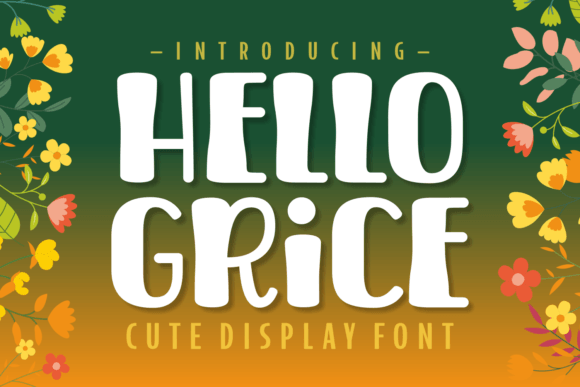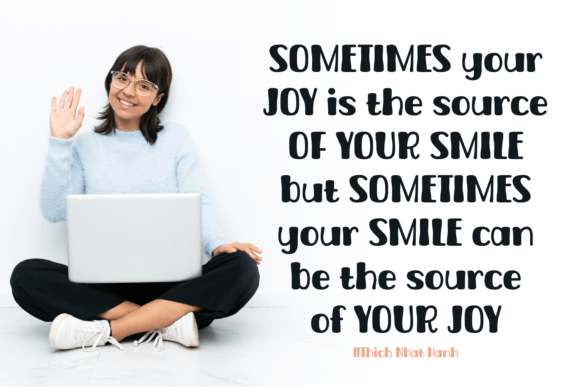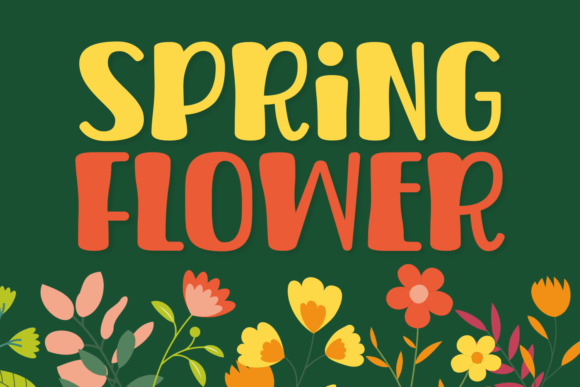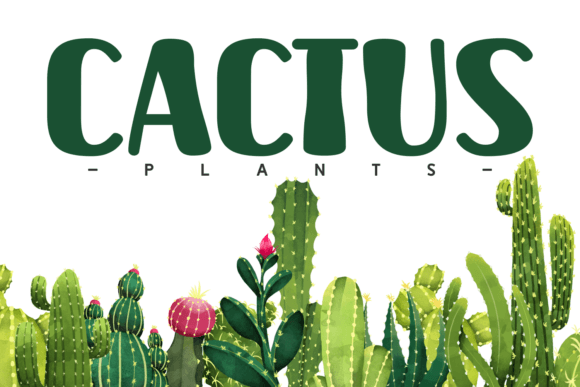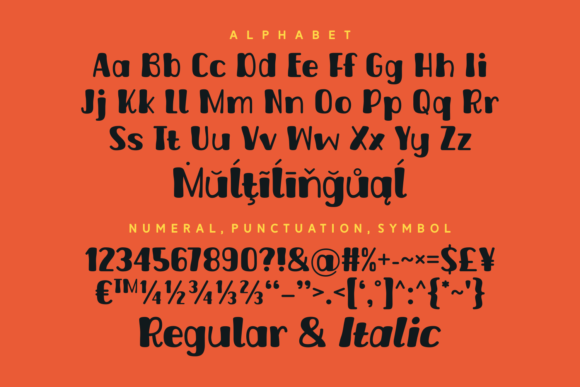
The Perfect Font for Whimsical Designs
Remember the moment when you’re brainstorming ideas for a project and suddenly, a burst of creativity hits you? The words start flowing, and your imagination runs wild. That’s exactly what the Hello Grice Font can do for your designs – transport them to a magical world where anything is possible.
Hello Grice is a display font that embodies the perfect blend of modern and whimsical style. Its cute and friendly nature makes it an ideal choice for designers looking to add a touch of playfulness to their work. With its unique charm, Hello Grice Font is sure to captivate your audience and leave a lasting impression. Whether you’re working on a children’s book, a greeting card, or a social media campaign, this font is sure to elevate your designs to the next level.
Hello Grice Font Key Features
- Font Family: Hello Grice is a sans-serif font family designed for modern and clean typography.
- Font Size: Hello Grice is available in 8 font weights, ranging from Thin (100) to Extra Bold (800), offering flexibility for various design needs.
- Unique Characteristics: Hello Grice features a unique blend of geometric and organic shapes, resulting in a distinctive and modern aesthetic.
- Language Support: Supports a wide range of languages, including Latin, Cyrillic, and Greek scripts, making it suitable for multilingual projects.
Hello Grice Font Review
I recently had the chance to work with the Hello Grice font, and I must say it’s an interesting addition to any design project. Here’s my honest take on this font.
- ✨ Unique Personality: The Hello Grice font has a distinct, playful personality that can add a lot of character to your designs.
- ✨ Good Legibility: The font is easy to read, even at smaller sizes, making it a great choice for body text or headings.
- ✨ Versatility: Hello Grice works well in a variety of contexts, from digital to print projects.
- ⚠️ Limited Expressiveness: While the font has a unique personality, it may not be expressive enough for more complex designs or themes.
- ⚠️ Limited Font Sizes: The font may not be the best choice for very large or very small font sizes, as it can lose its legibility.
The Hello Grice font is a solid addition to any designer’s toolkit. While it may not be the most expressive font, it’s easy to use and adds a lot of character to your designs. With some careful selection and usage, it can be a great choice for a variety of projects.
Practical Application Guide: Hello Grice Font
The Hello Grice Font is ideal for:
- Creating eye-catching headings and titles.
- Designing modern and minimalist logos.
- Adding a touch of elegance to business cards and resumes.
For optimal results, use the Hello Grice Font in conjunction with a clean and simple design aesthetic.
For optimal readability, we recommend using the Hello Grice Font at a minimum size of 12pt and a line height of 1.2-1.5 times the font size. This will ensure clear and easy-to-read text in most digital applications.